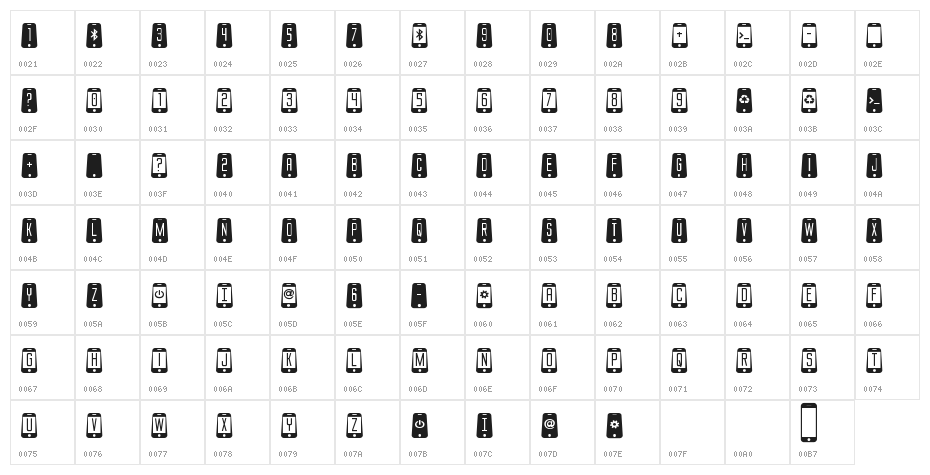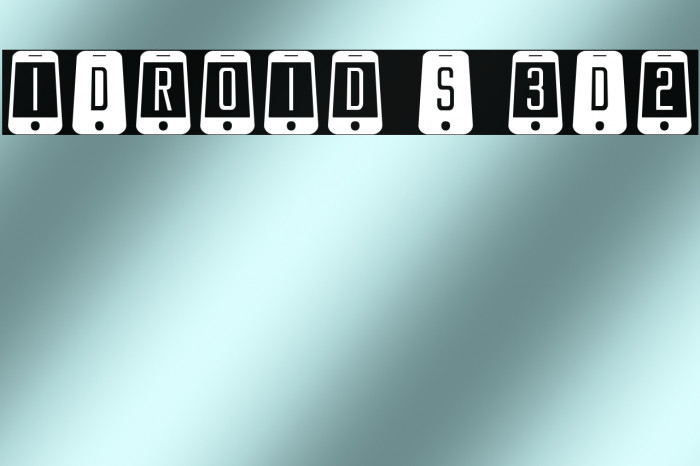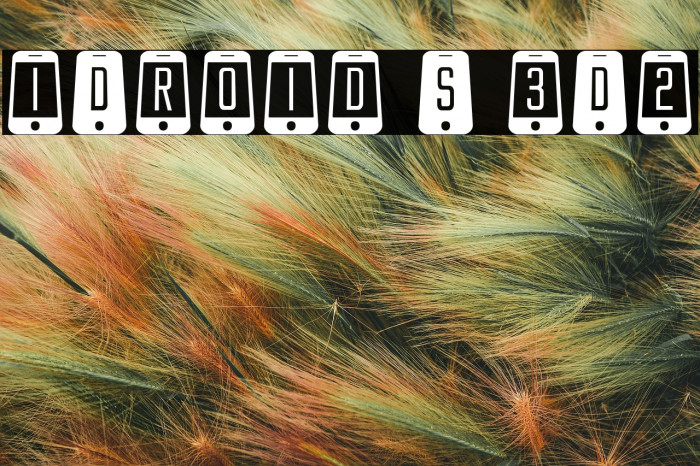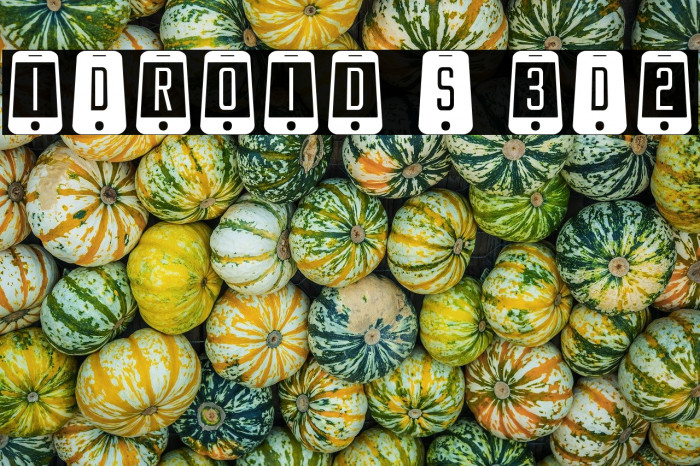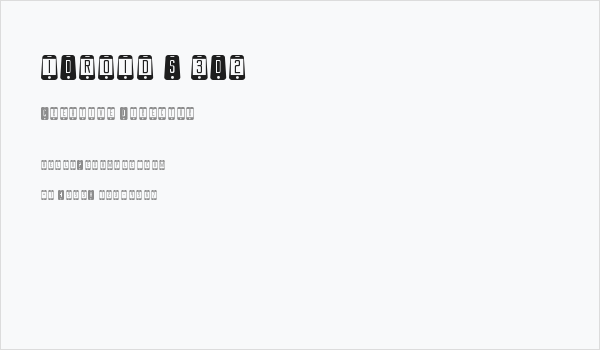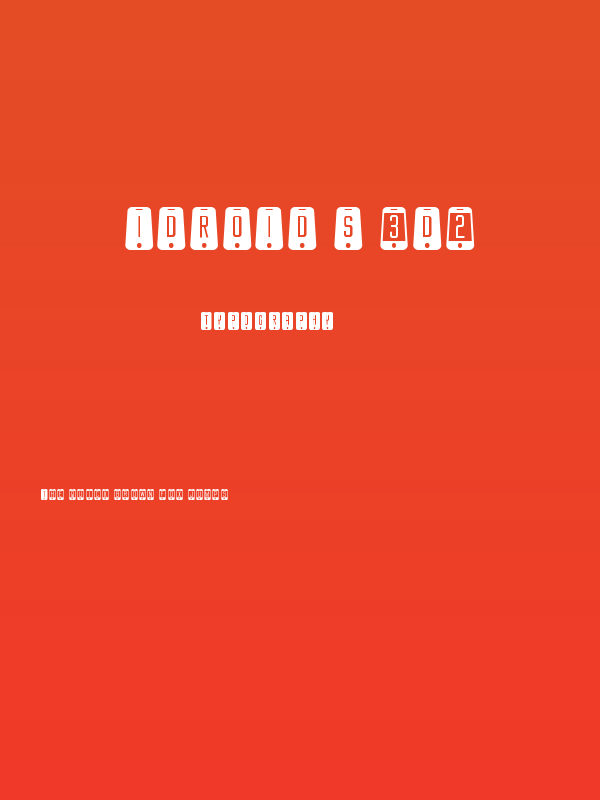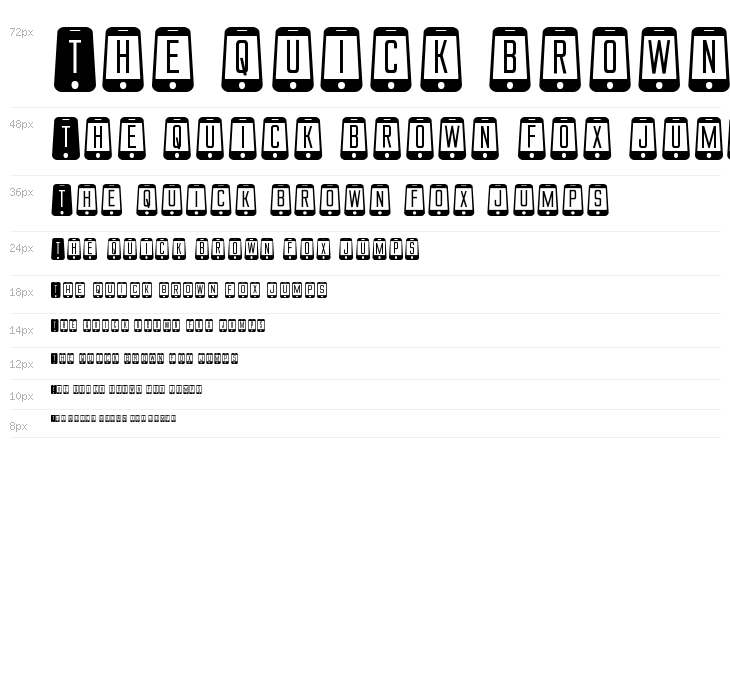
iDroid S 3D2 Font
iDroid S 3D2 Description
This font features a unique design where each character is enclosed within a smartphone-like shape, complete with a home button at the bottom. The letters and numbers are bold and geometric, offering a modern and tech-inspired aesthetic. The characters are well-defined and evenly spaced, making them easily readable despite the unconventional design. The font includes both uppercase and lowercase letters, numbers, and a selection of special characters, all maintaining the same distinctive style. This design is particularly striking and would stand out in any digital or tech-related project.
| Use Case | Headlines, Logos, Digital Media |
| Proposed Projects | Ideal for tech-themed posters, app designs, digital marketing materials, and futuristic branding projects. |